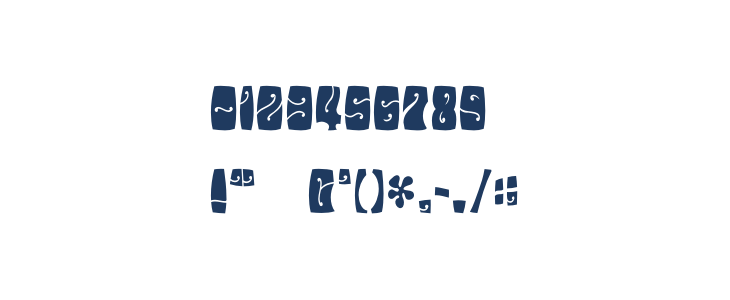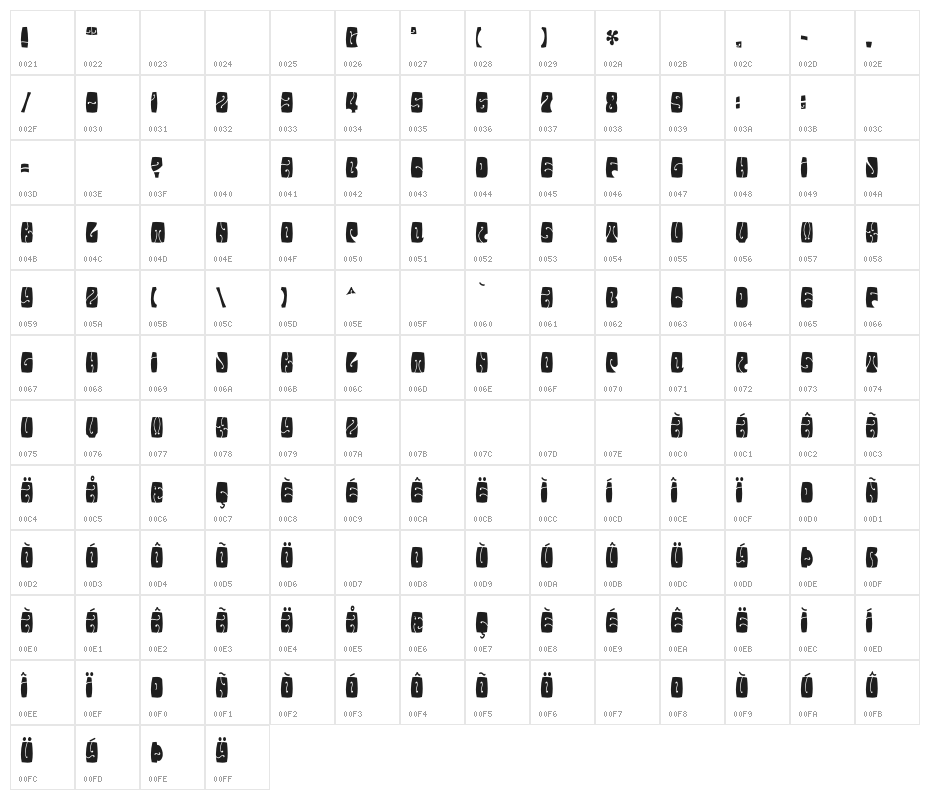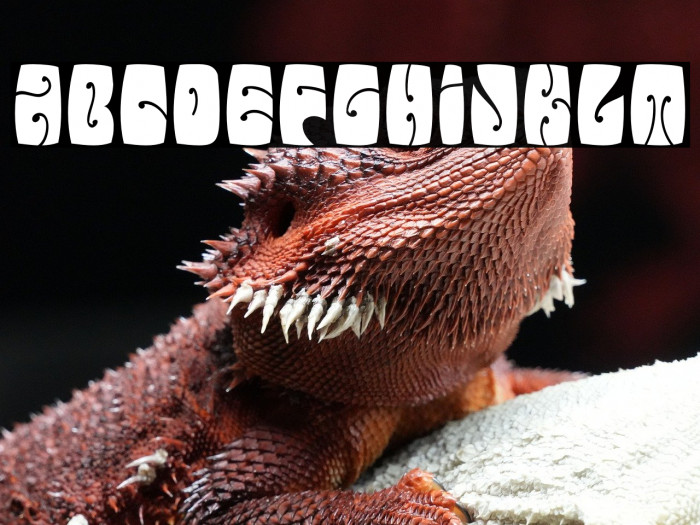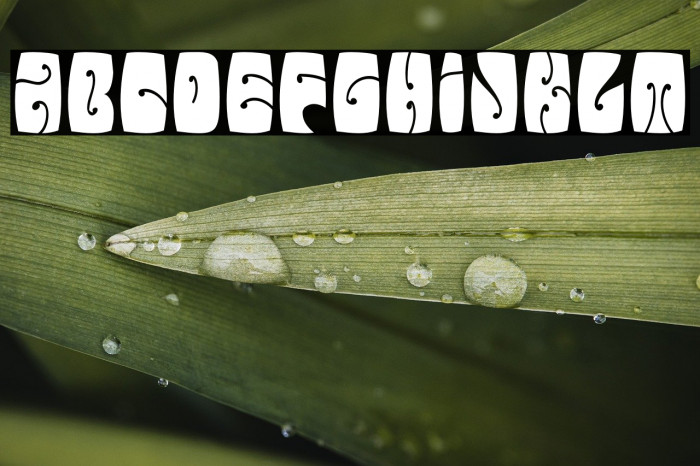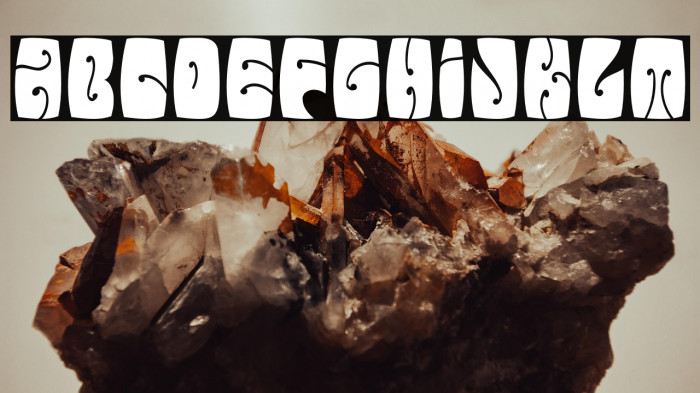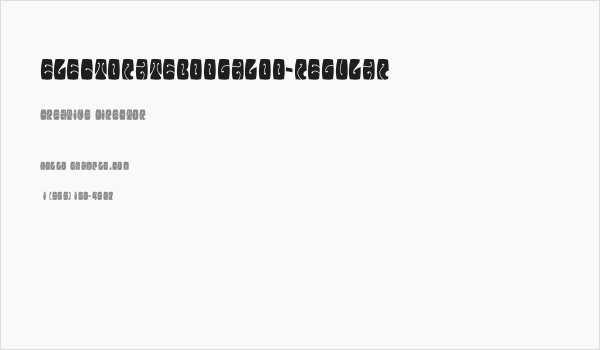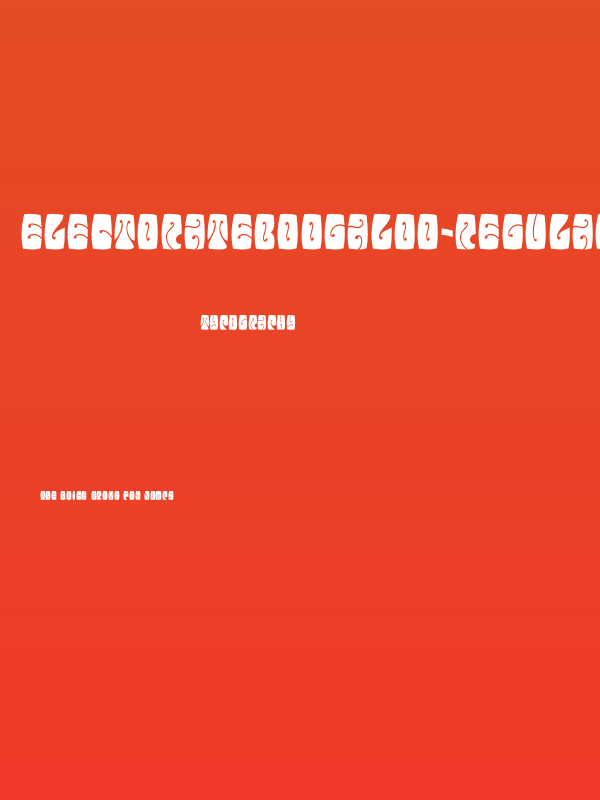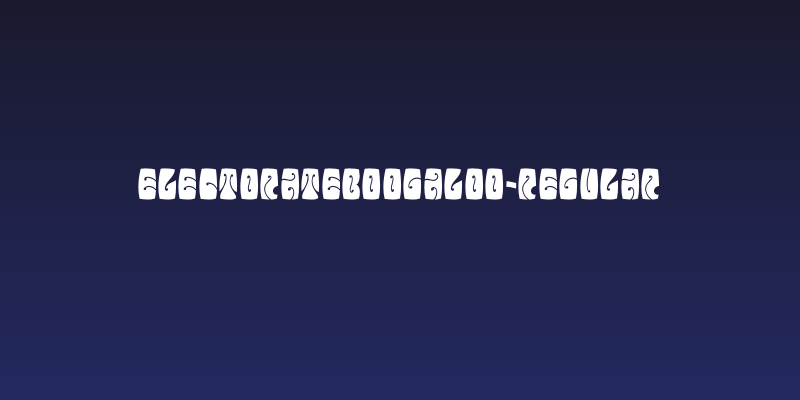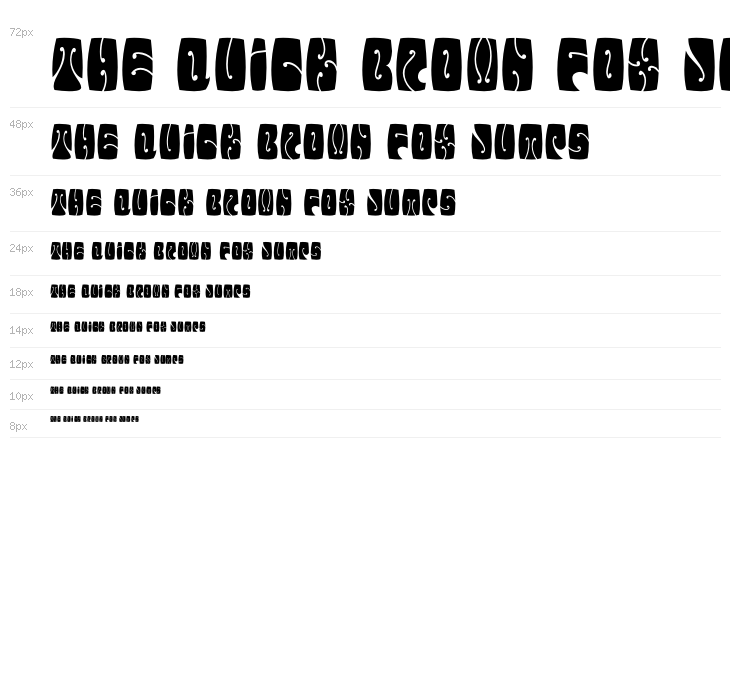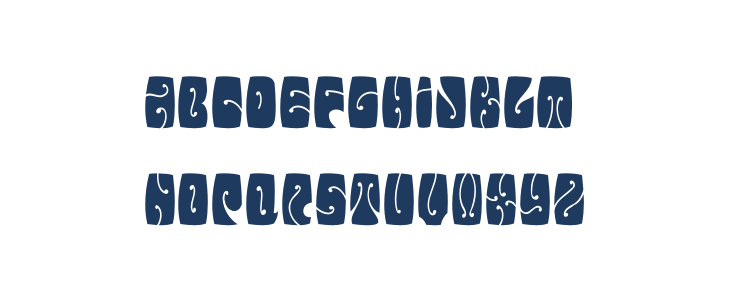
ElectorateBoogaloo-Regular Font
ElectorateBoogaloo-Regular Description
This font features a bold and playful design with a unique, abstract style. Each character is enclosed within a rectangular shape, creating a cohesive and structured appearance. The letters and numbers are adorned with whimsical, swirling patterns that add a sense of movement and creativity. The font's high contrast between the thick, black shapes and the white background enhances its visibility and impact. Its decorative nature makes it ideal for eye-catching designs, where a bold statement is desired.
| Proposed Projects | Ideal for posters, album covers, branding projects, and creative digital art. |